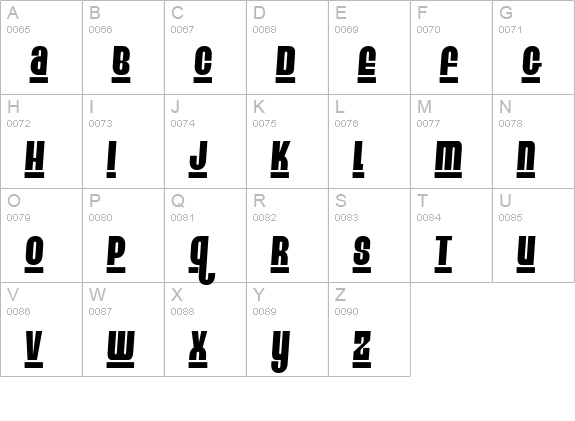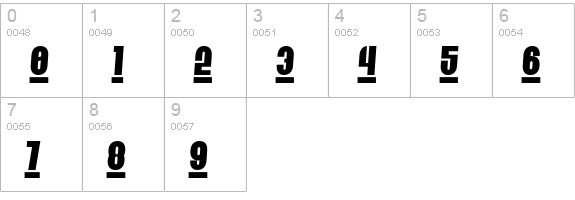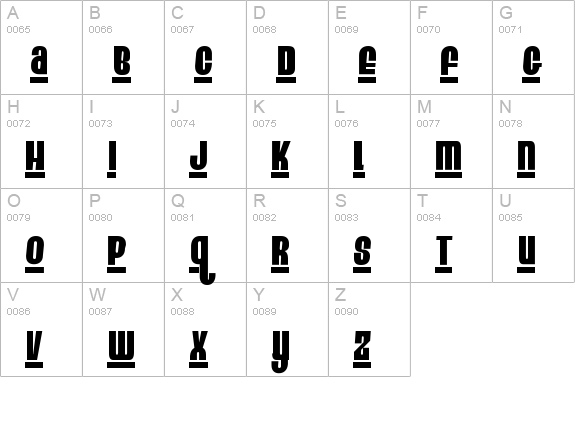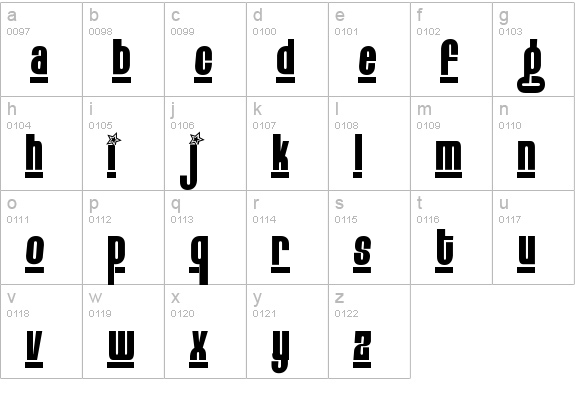
The Eight Track program 4 font is a sleek and modern typeface that exudes a sense of sophistication and creativity. Its clean lines and bold design make it perfect for a wide range of design projects, from logos to headlines to branding materials. This versatile font is sure to make a statement and leave a lasting impression on your audience. Best of all, the Eight Track program 4 font is available for free download at FontsMarket.com. Simply head over to the website and start using this unique and eye-catching font in your projects today. Don't miss out on the opportunity to add this stylish typeface to your design toolkit for no cost at all. Download it now and elevate your designs with the Eight Track program 4 font.